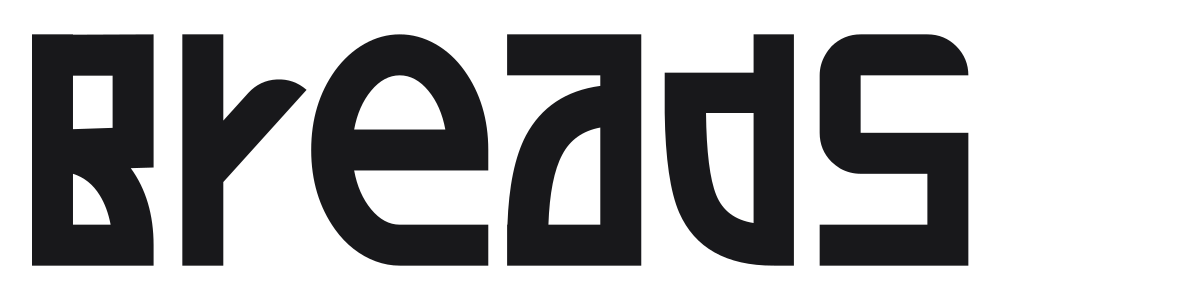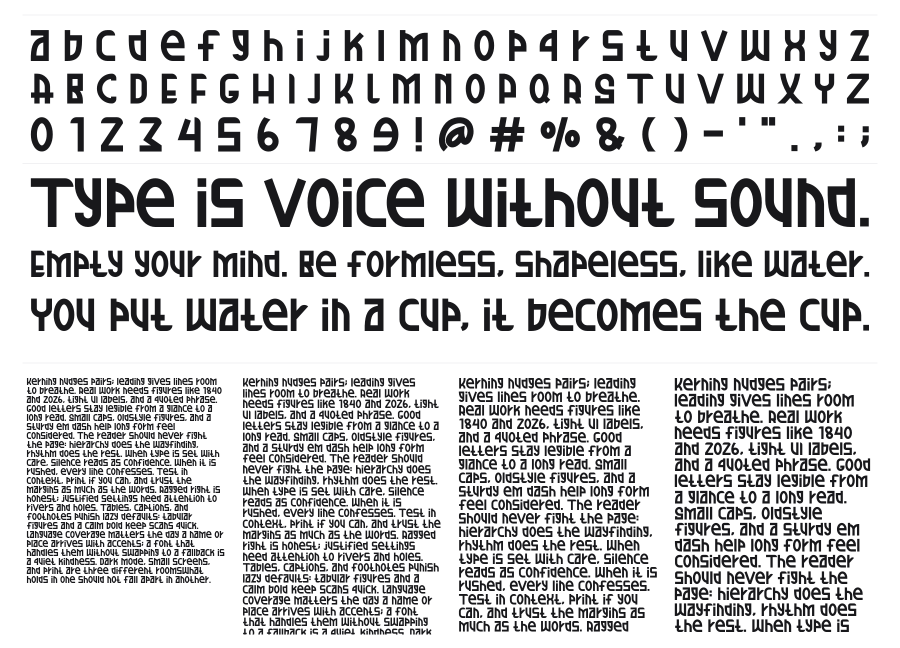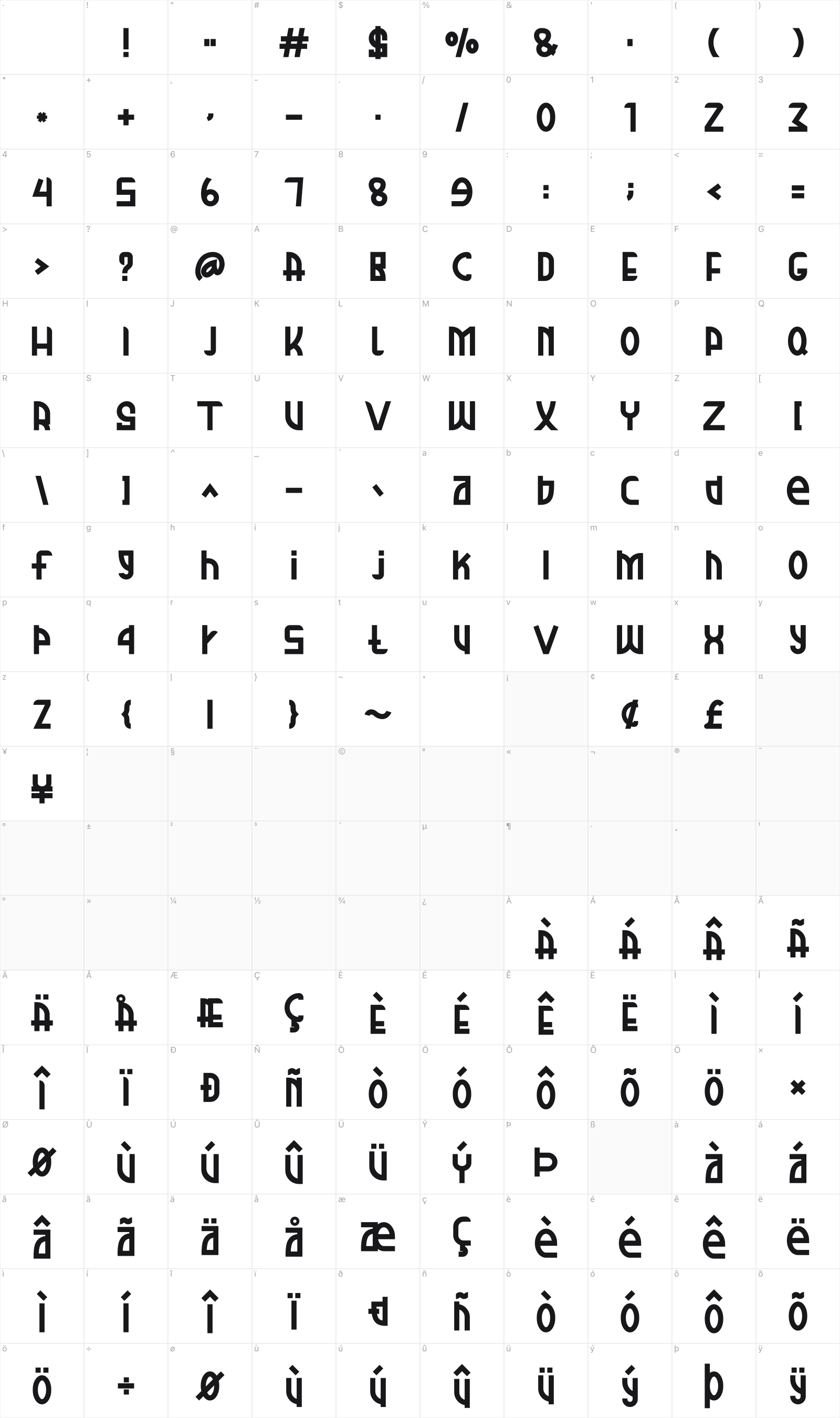
Breads
Breads is a heavy display sans with thick strokes, angular cutouts, and a muscular retro-geometric personality. The unconventional letter construction draws from Art Nouveau geometry filtered through a bold sports aesthetic, giving each character a distinctive blocky presence. It works at large sizes for posters, apparel graphics, and team branding.